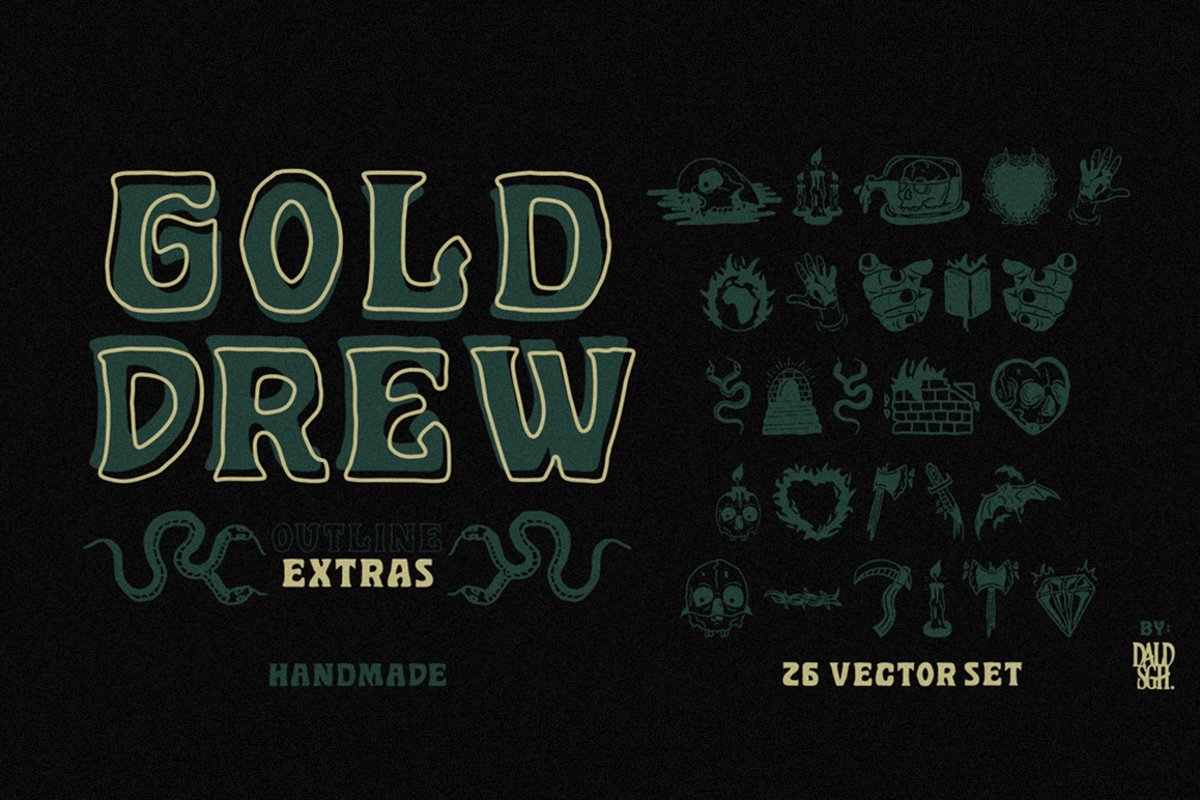
Golddrew Fonts
Golddrew is a handwritten font. A beautiful display font with alternate characters, very suitable for any design purpose like magazines, packaging, branding , website header, posters, greeting cards, letterhead, and many more other creative project..
• Golddrew
• Golddrew Outline
• Golddrew Extras